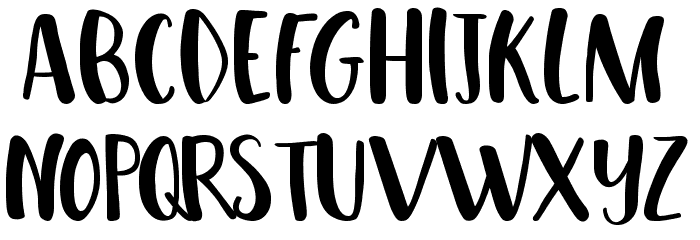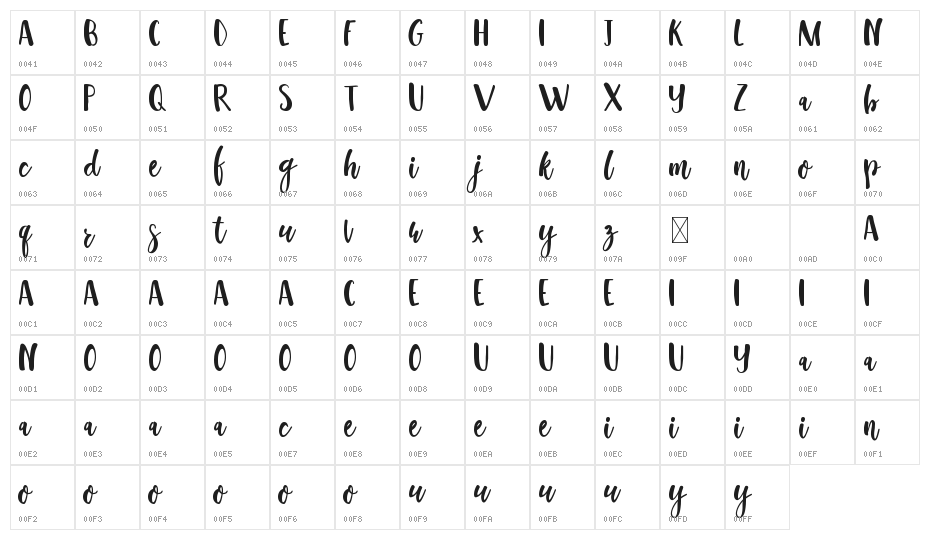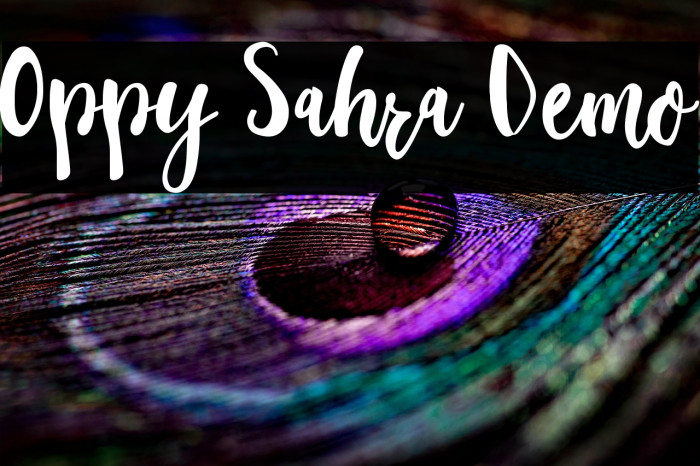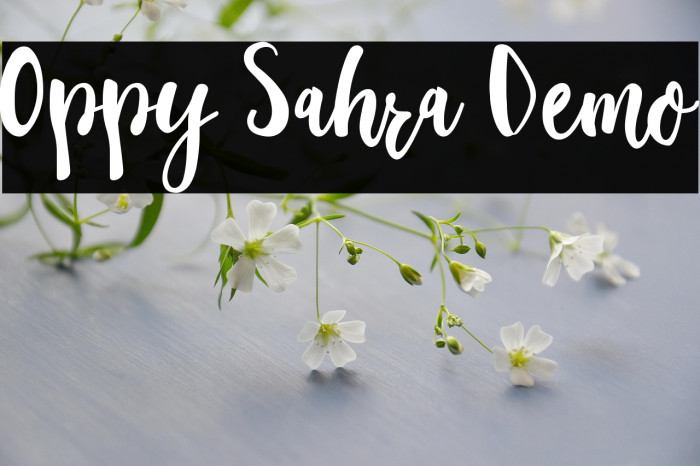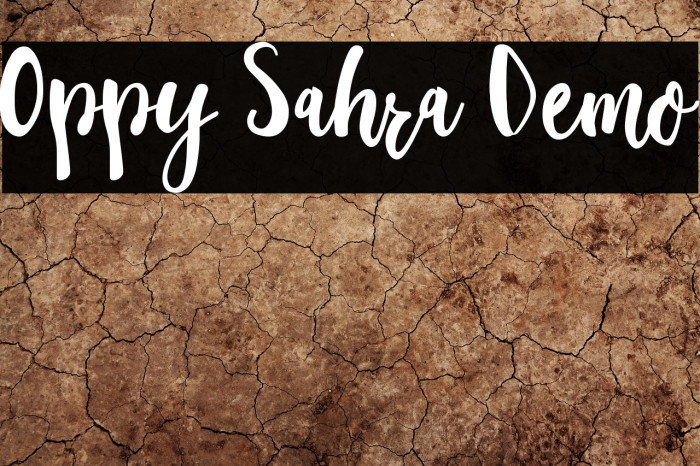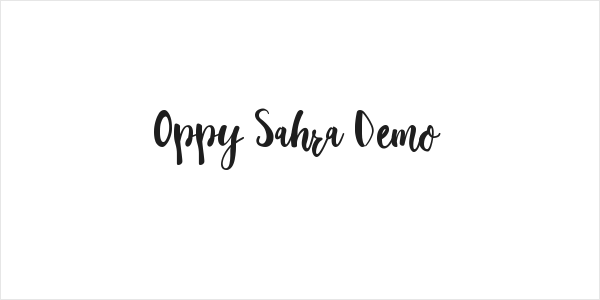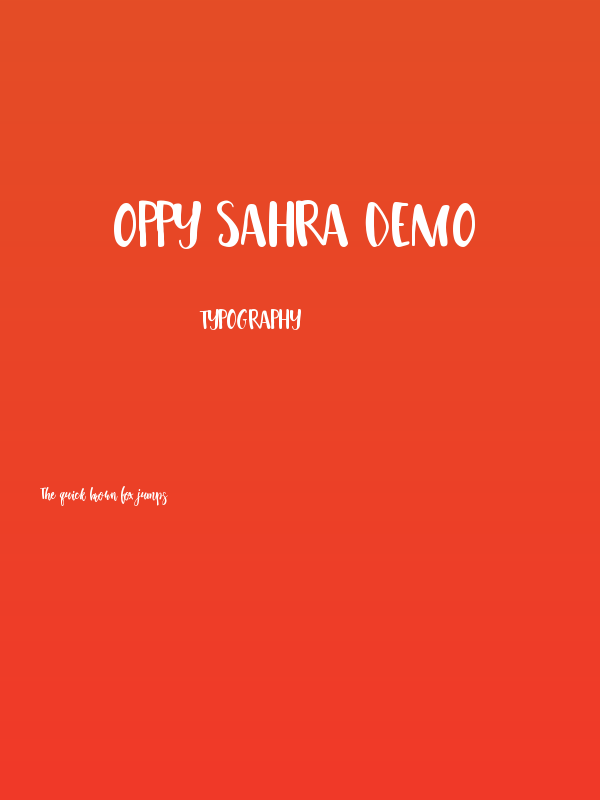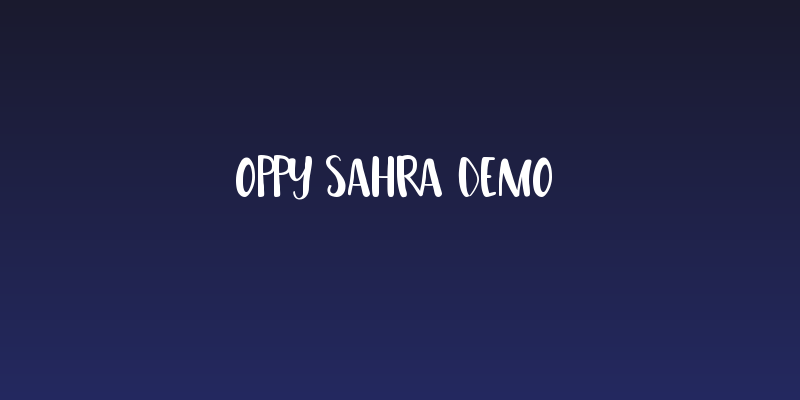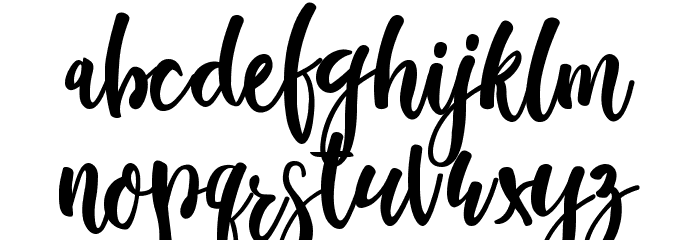
Oppy Sahra Demo Font
Oppy Sahra Demo Description
This font features a lively and expressive handwritten style, characterized by its fluid and dynamic letterforms. The uppercase letters are bold and slightly condensed, with a playful yet elegant appearance. The lowercase letters exhibit a flowing script style, with varying stroke thickness that adds to the font's charm. The overall look is modern and artistic, making it suitable for creative projects. The font maintains a consistent baseline, while the ascenders and descenders add a touch of whimsy. This font is perfect for adding a personal touch to any design.
| Proposed Projects | Ideal for greeting cards, invitations, branding, and creative projects that require a personal touch. |